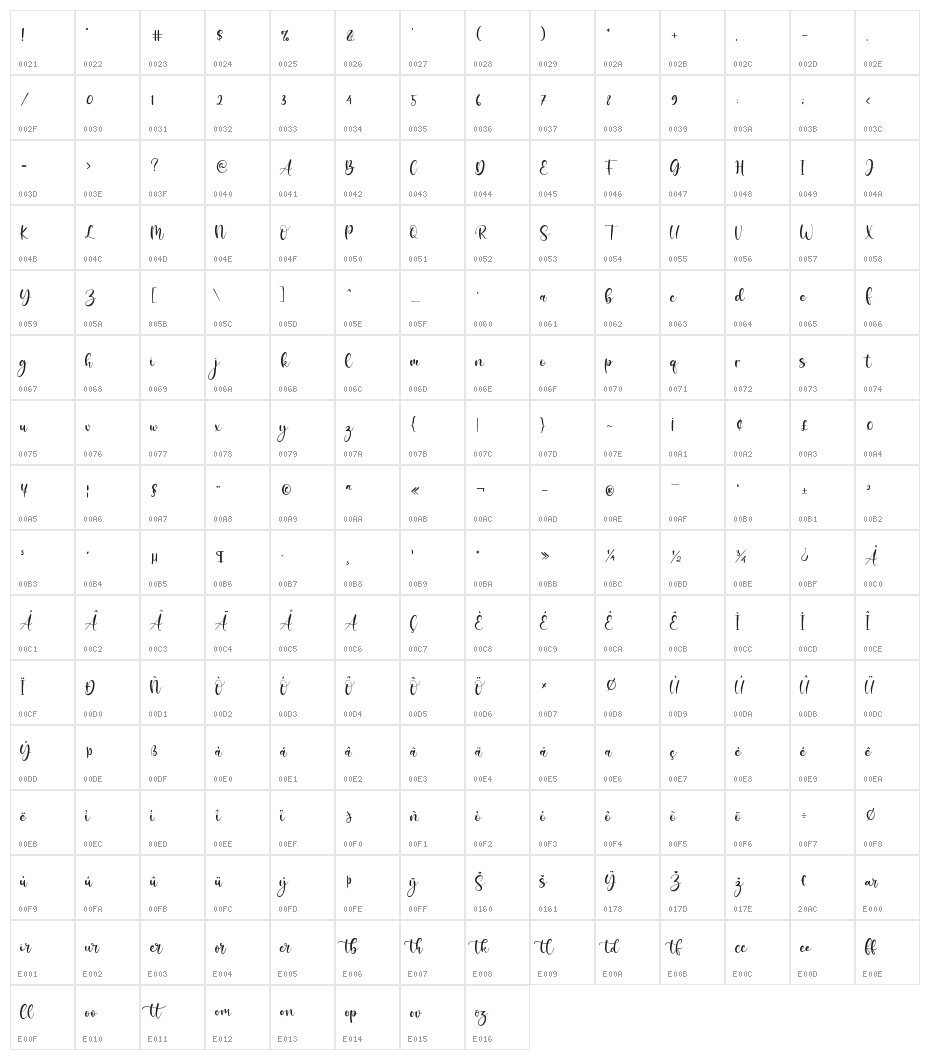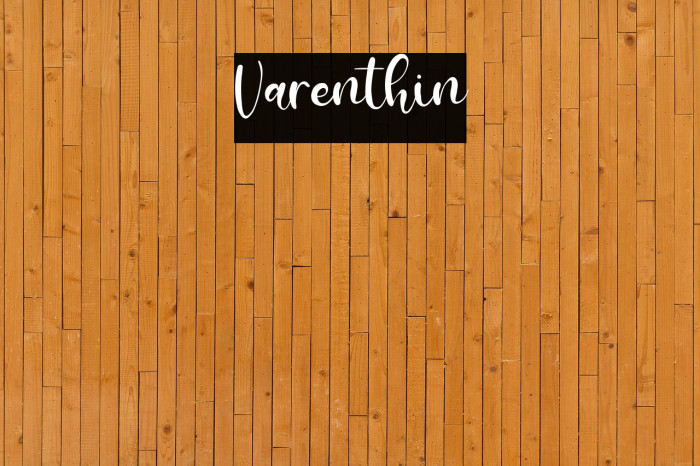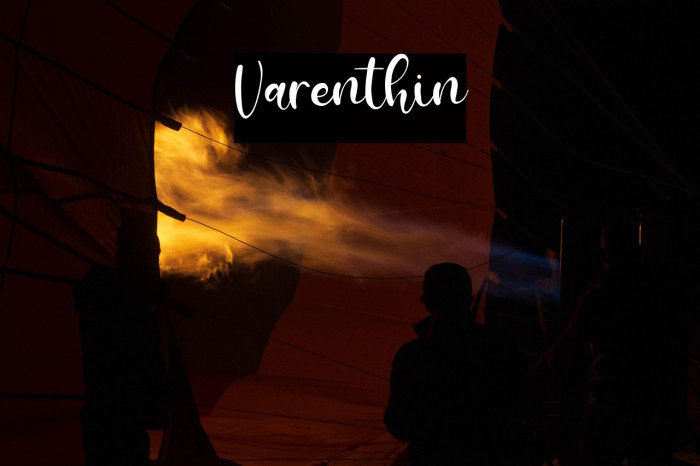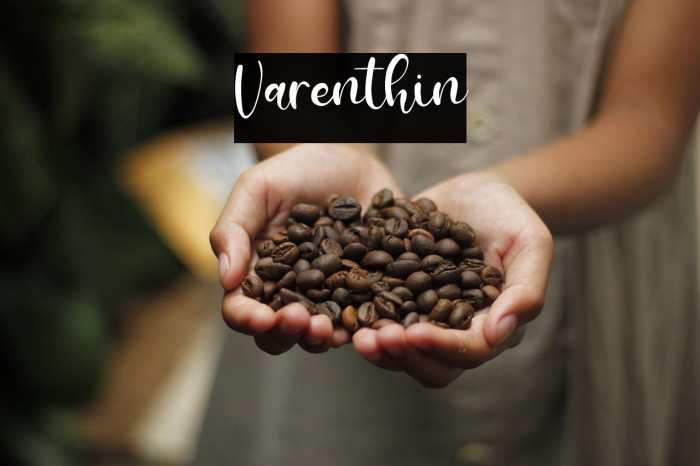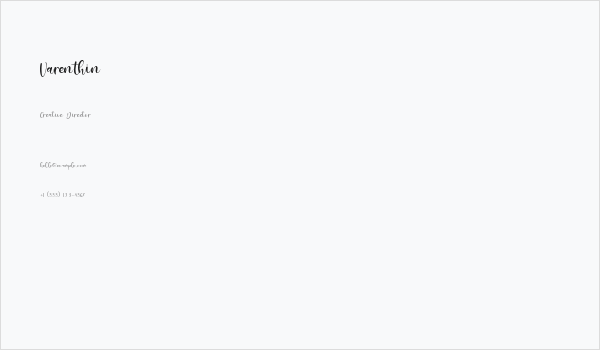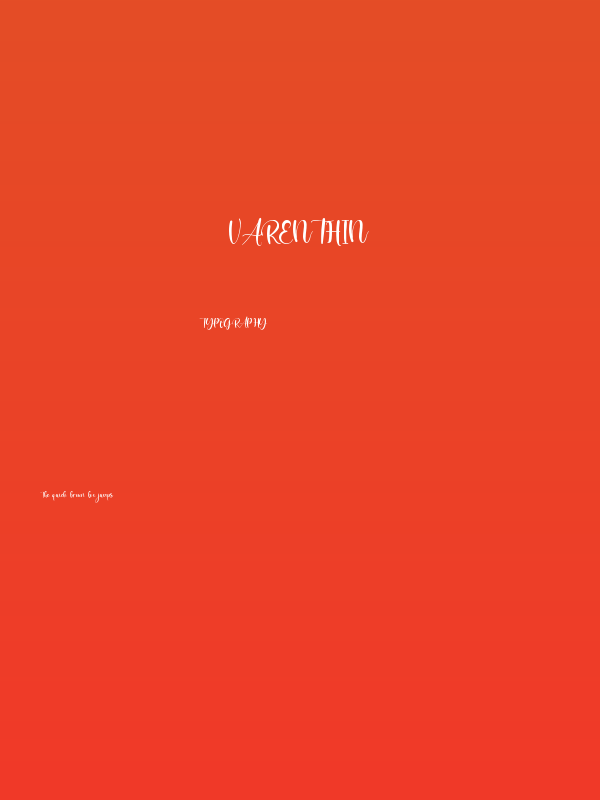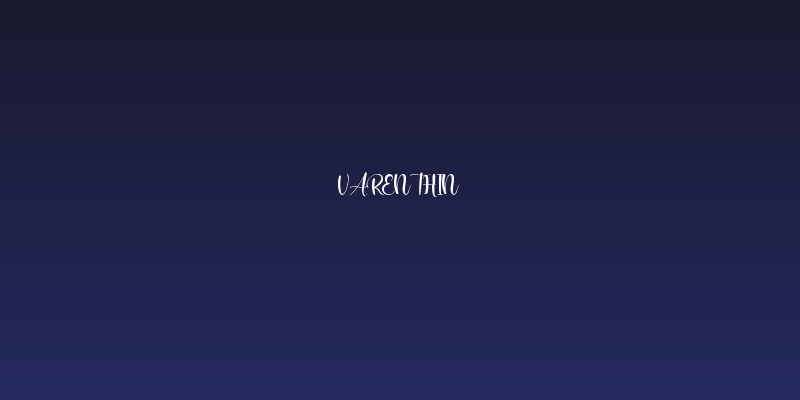
Varenthin Font
Varenthin Description
This font exudes a playful and elegant charm with its flowing script style. The characters are intricately designed with a blend of thick and thin strokes, creating a dynamic contrast that adds to its visual appeal. The uppercase letters are particularly ornate, featuring loops and swirls that give them a decorative flair. The lowercase letters maintain a consistent style, with smooth curves and a slightly informal touch. The numerals and special characters are crafted to match the overall aesthetic, ensuring cohesion across all elements. This font is perfect for projects that require a touch of sophistication and creativity.
| Use Case | Logos, Invitations, Greeting Cards |
| Proposed Projects | Ideal for wedding invitations, greeting cards, branding, and logo design. |